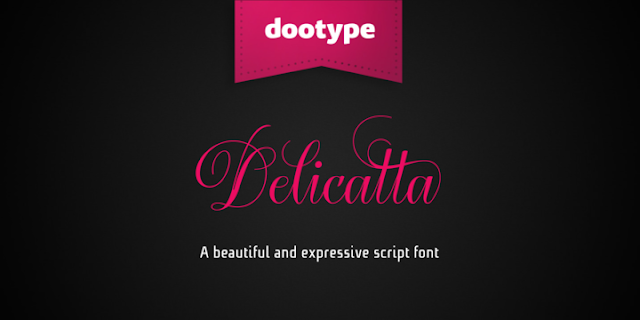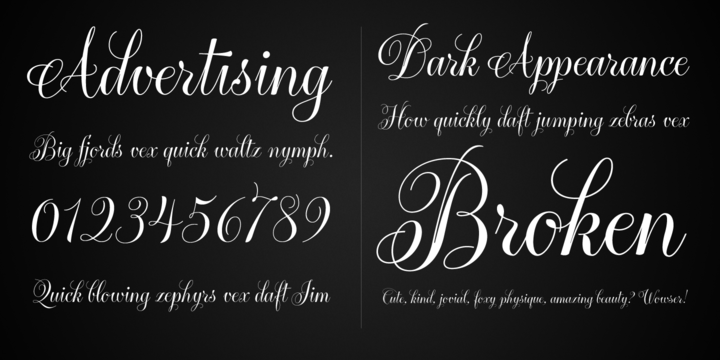
[Script] Delicatta Việt hóa
Thông tin về font Delicatta
“Delicatta” is a beautiful and expressive script font by dooType. You can use it in many areas such as packaging, invitations, magazines and posters.
Designers: Eduilson Wessler Coan
Design date: 2012
Publisher: dooType